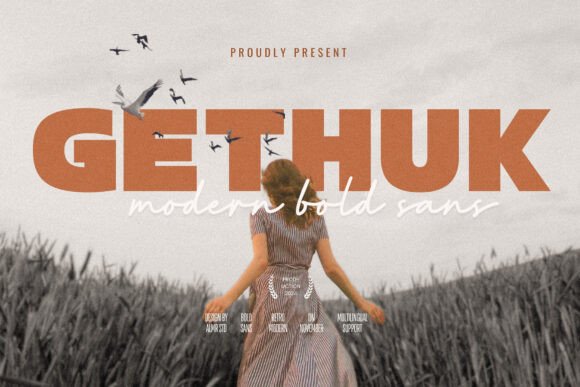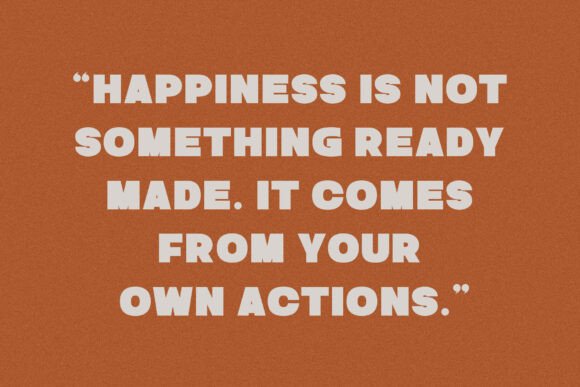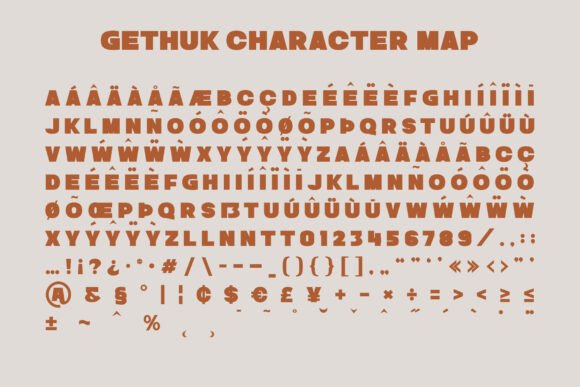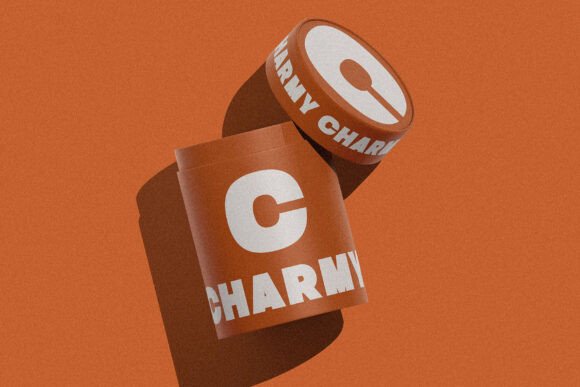
Gethuk Font: Modern Bold Sans Serif for Inspiring Headlines & Logo Design
About the Gethuk Font
Get ready to be inspired by Gethuk Font, a fresh and dynamic typeface for modern creators. Introducing Gethuk – Modern Bold Sans. Gethuk is a modern and Bold font, best used as a display for headings, logos, branding, magazines, product packaging, and invitations.
Gethuk’s strong, bold forms make it ideal for impactful headlines, logos, and short, attention-grabbing text in branding materials and posters. Its modern aesthetic suits contemporary projects and brands projecting confidence and authority. Avoid using Gethuk for body text or lengthy paragraphs; its weight and boldness can strain readability in smaller sizes.
Pairing Gethuk effectively depends on the desired effect. For a sophisticated feel, consider pairing it with a clean, geometric sans-serif like Lato for body copy. To create a warmer, more approachable feel, a neutral serif like Garamond or a slightly rounded sans-serif like Montserrat would work well. Avoid pairing it with other bold fonts, which would create visual competition.
Gethuk’s core personality is modern and bold, conveying strength and dynamism. It is well-suited to brands in technology, finance, or fashion aiming for a confident and contemporary image. It lacks the subtlety for projects requiring elegance or delicate aesthetics.